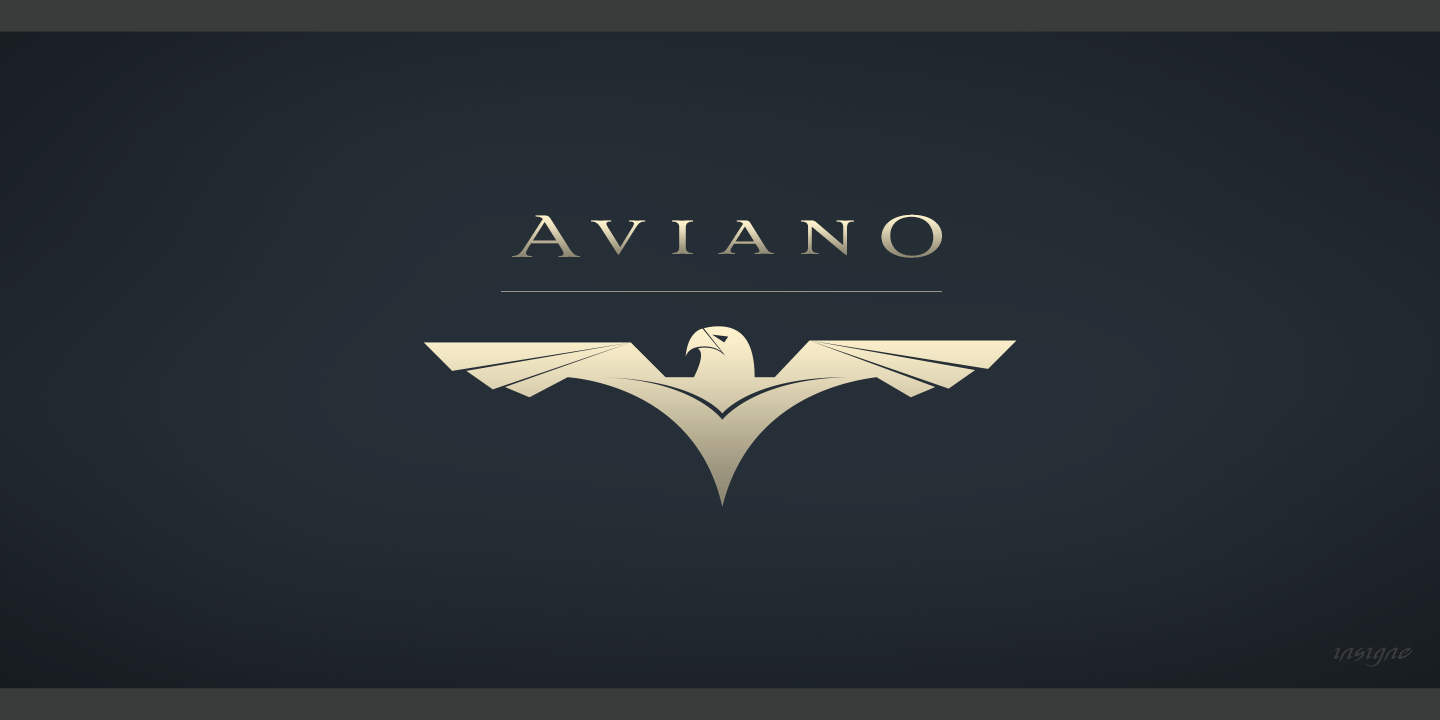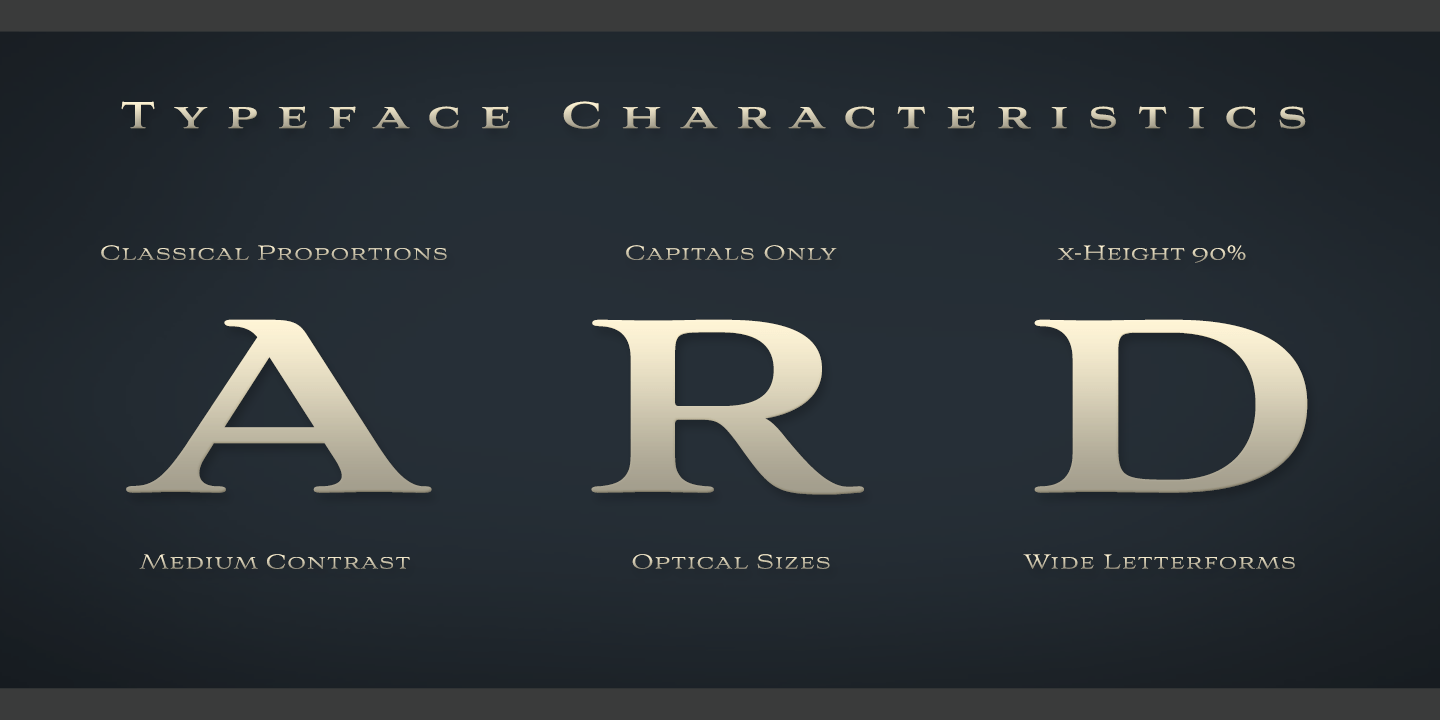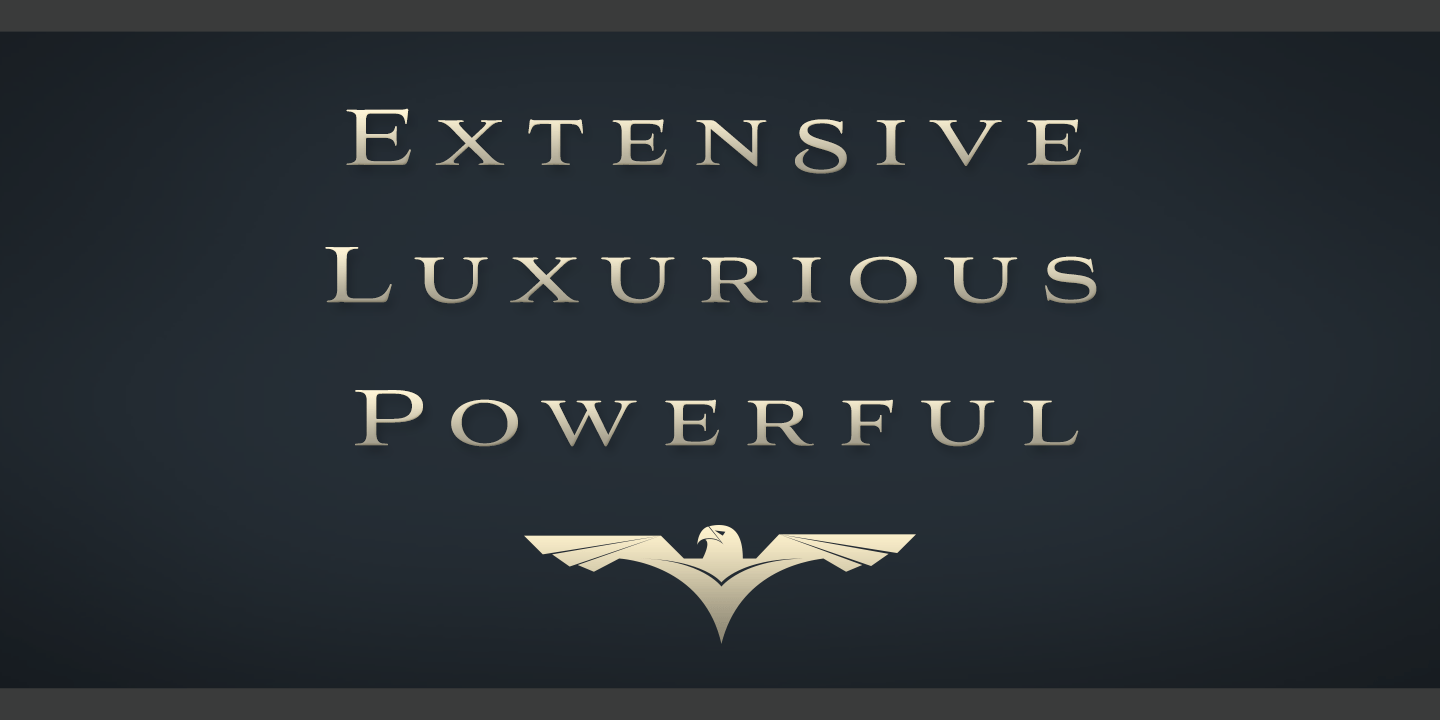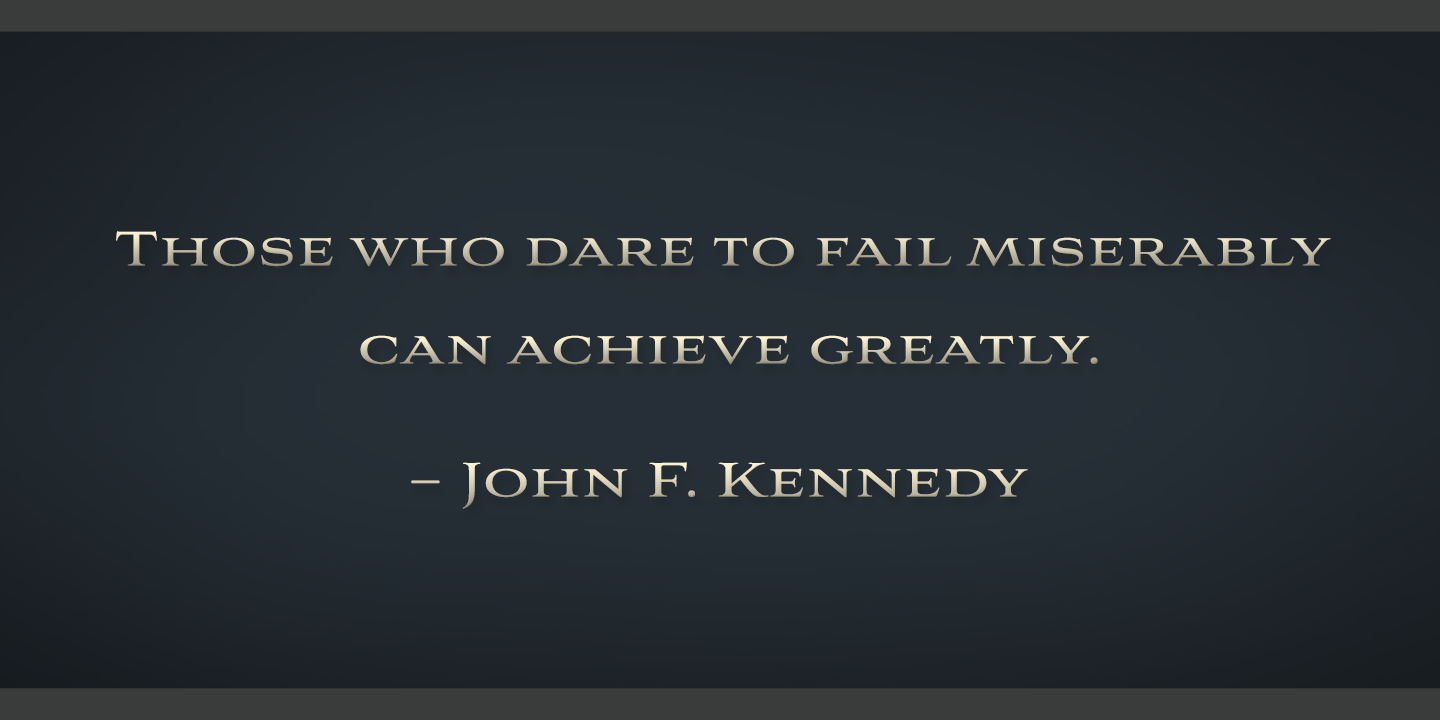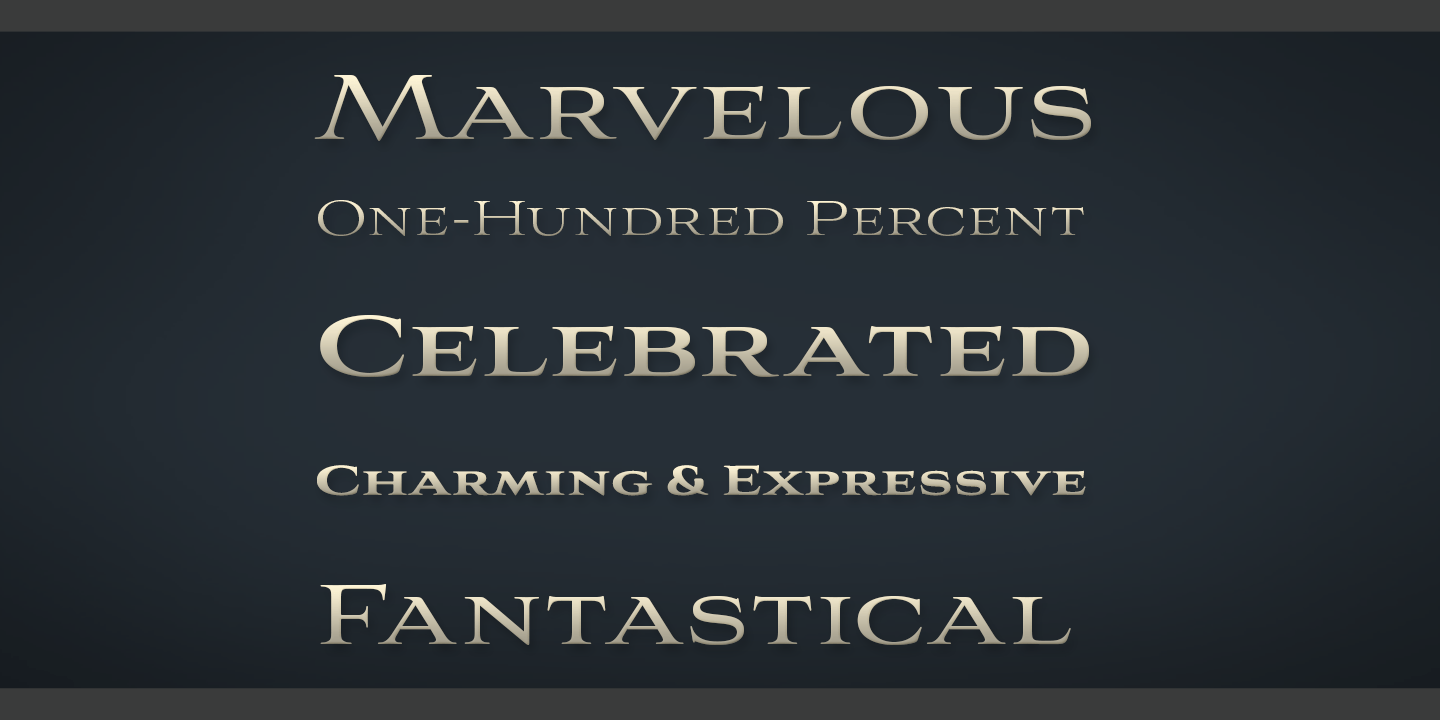
Aviano
Buy NowAviano is an extended titling face with influence from the power and timeless beauty of classical letterforms.
Aviano features extended characters for a formal feel, sharp, powerful looking serifs and geometric and consistent letterforms. Use Aviano as an alternative to Trajan.
Aviano includes a number of advanced OpenType features including alternates, 40 unique ligatures and old style figures.
The Aviano family was updated in 2008 to include a light and black weight. Be sure to check out the rest of the Aviano series, including Aviano Serif, Aviano Sans and Aviano Slab.
Aviano is named for a small town at the base of the Alps in northern Italy.